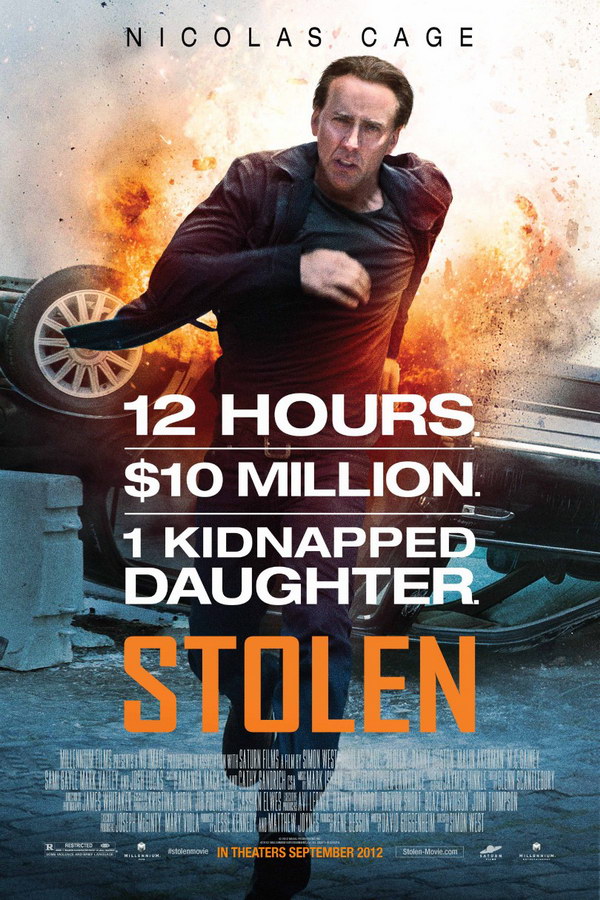
Stolen Font
ActionStolen is a 2012 action-thriller film starring Nicolas Cage as a former thief who must complete one last heist to save his kidnapped daughter.